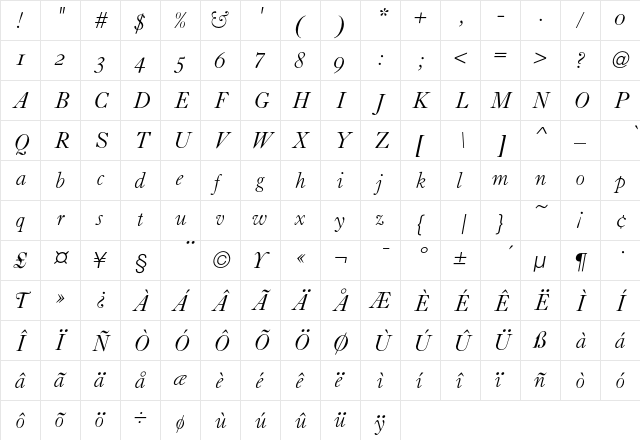
CaslonC37 LightItalicAlternates
Design Context for CaslonC37 Typeface
CaslonC37 takes a measured approach to typography — its balanced proportions and neutral character make it a reliable workhorse for both digital and print work. Its italic angle brings a sense of urgency and motion to the letterforms. The delicate stroke weight brings airiness and refinement to layouts.
Pro Tip: Use CaslonC37 for emphasis, pull quotes, and subheadings where its slanted energy can add rhythm to the layout.